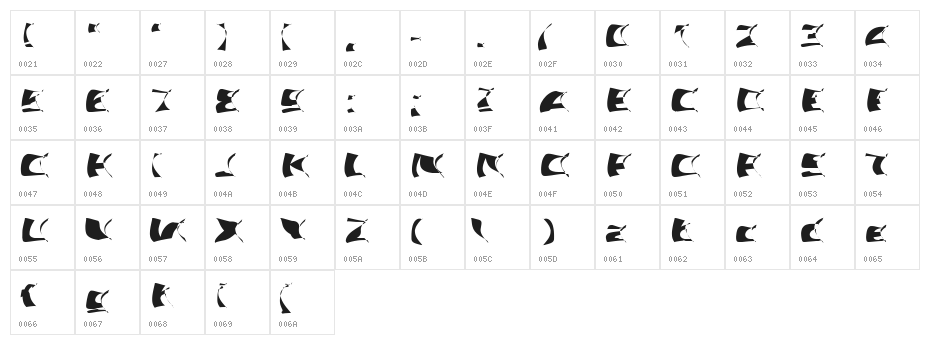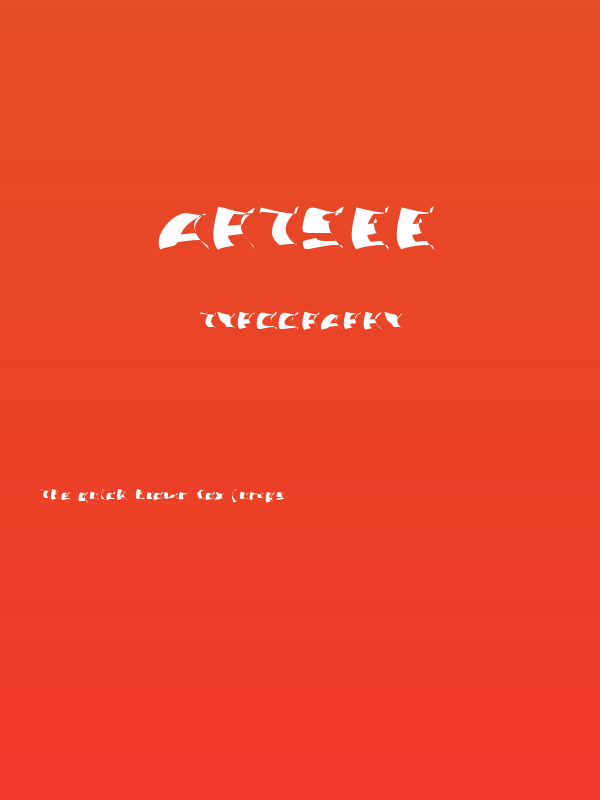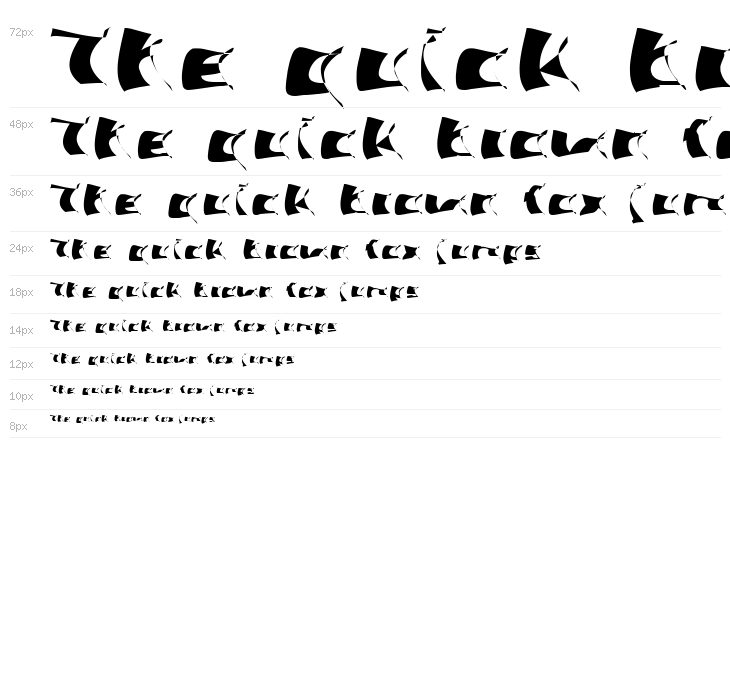
Artsee Font
| Categorías | Quirky |
| Estilo general | Modern, Avant-garde |
| Caso de uso | Headlines, Logos, Artistic Displays |
| Proyectos propuestos | Ideal for artistic posters, album covers, avant-garde branding, and experimental design projects. |